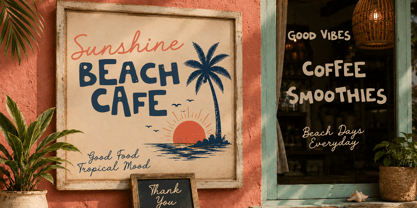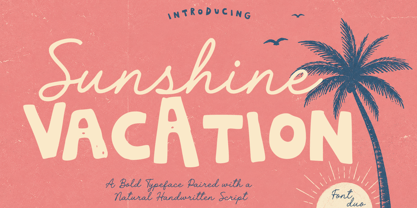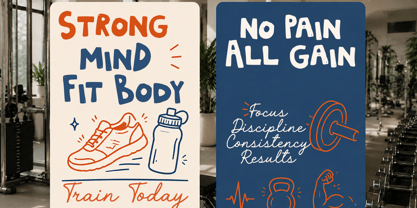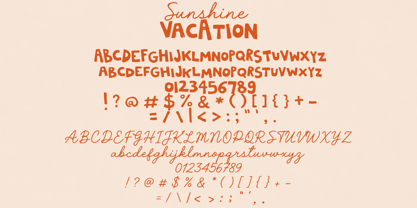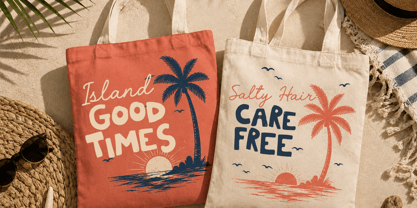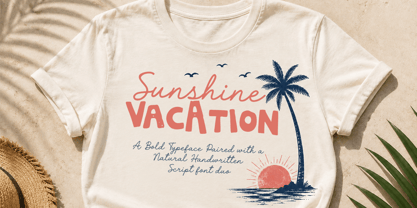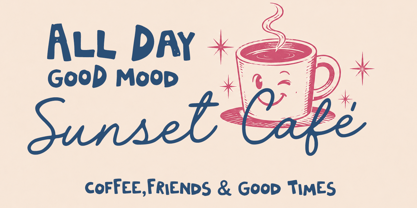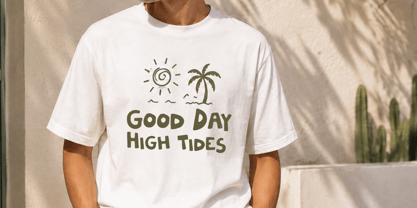
Sunshine Vacation
The Sunshine Vacation Font Family was designed by Muhammad Zaini and published by Cocodesign. Sunshine Vacation contains 2 styles and family package options. More about this family
Discover a fun and expressive font duo that seamlessly blends a bold display typeface with a natural handwritten script. The bold style offers a strong, playful presence, while the handwritten script introduces an authentic and relaxed character. This combination is perfect for crafting eye-catching designs that evoke a summer, tropical, beach, retro, and casual lifestyle vibe. Whether your project leans modern or vintage-inspired, this duo shines in various applications. Ideal for T-shirt designs, logos, branding, posters, packaging, labels, stickers, signage, invitations, social media graphics, postcards, beach merchandise, and decorative typography, it enhances your creative endeavors with versatility and charm.